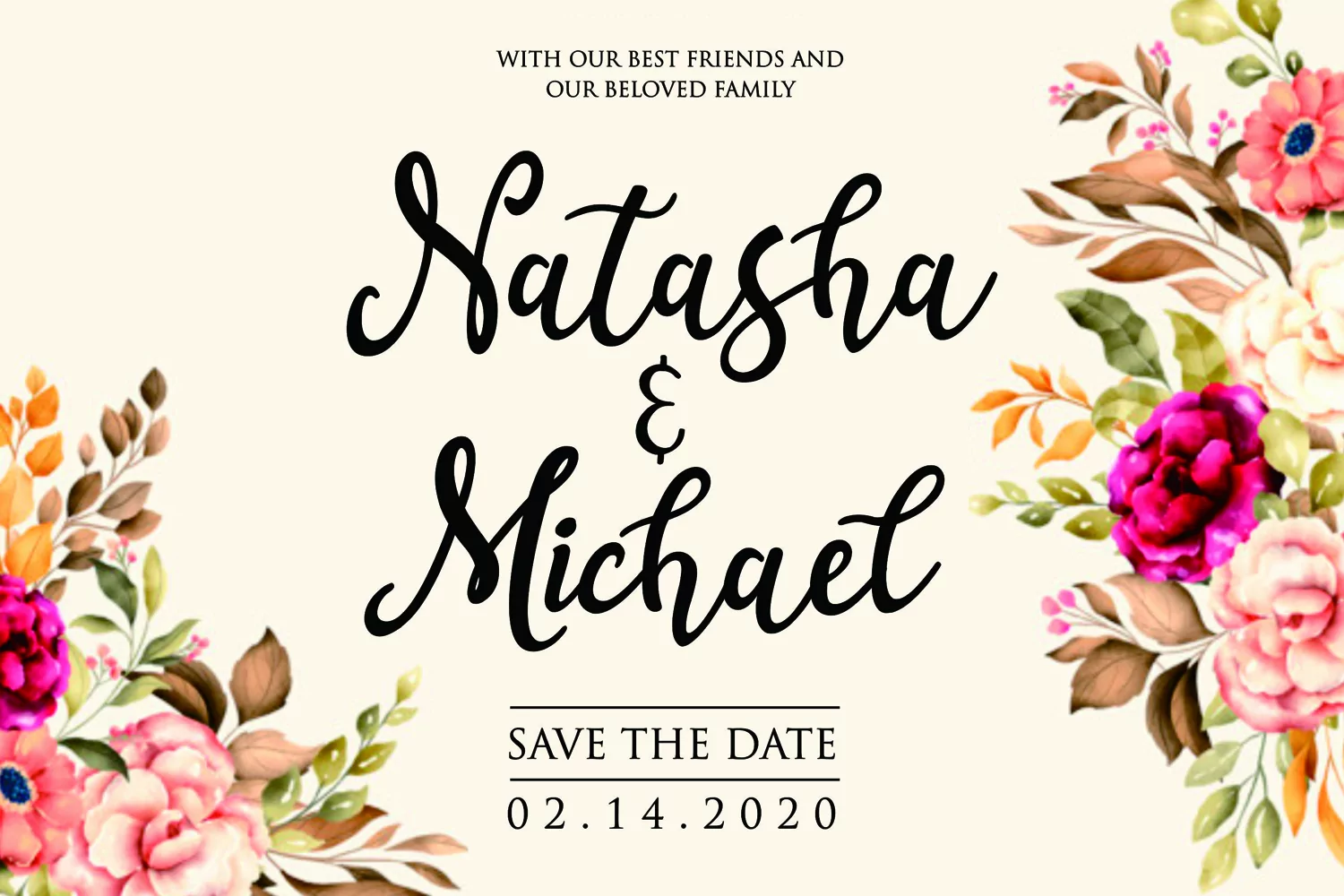
Valentina - a lovely callygraphy typeface
It's name Valentina - a lovely callygraphy typeface.
Hai Butterfly is a beautiful calligraphy font. It is a cute a fun font. But can also be used invitation, logos & branding , photography, advertisements, watermark, social media posts, product packaging, product designs, label, wedding designs, stationery, special events or anything that need handwriting taste.
Valentina Font Features :